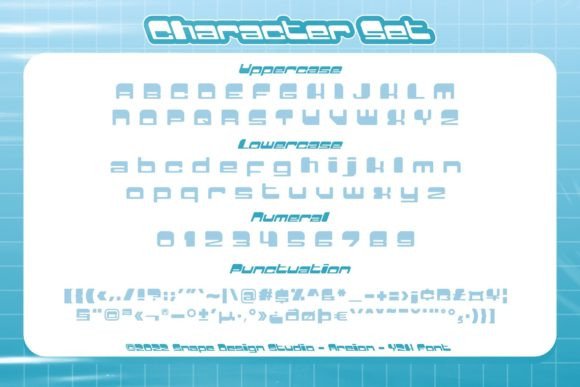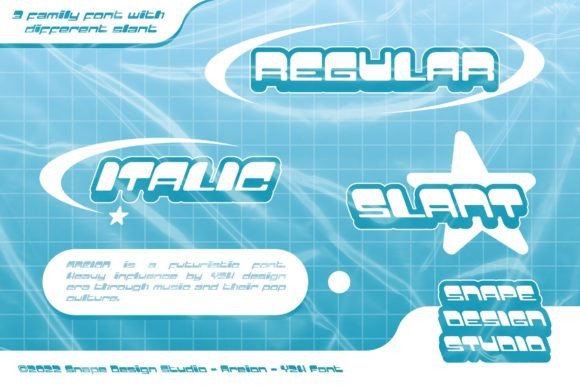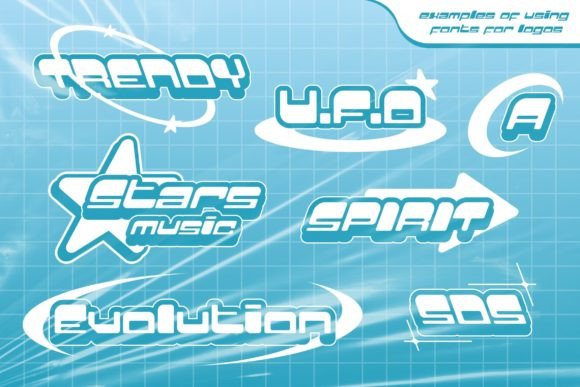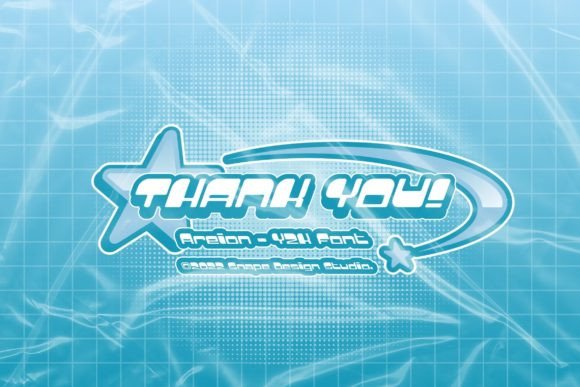
Introducing Areion Font: The Futuristic Display Font Inspired by Y2K Design
In the world of typography, fonts play a crucial role in conveying the tone and aesthetic of a design project. For designers and crafters looking to add a touch of innovation and futurism to their work, Areion Font is an exciting new discovery. This unique and futuristic display font is heavily influenced by the Y2K design era, making it perfect for technology, digital, space/galaxy-themed projects, or anything that needs a bold and forward-thinking approach.
The Y2K Design Era Influence
The Y2K design era, which emerged in the late 1990s and early 2000s, was characterized by a distinctive aesthetic that blended technology, futurism, and a dash of playfulness. This era saw the rise of digital music, video games, and the internet, which significantly influenced the visual landscape of the time. Areion Font taps into this nostalgia, incorporating elements of Y2K design to create a font that is both retro-futuristic and cutting-edge.
Key Features of Areion Font
Areion Font boasts several key features that make it an attractive choice for designers and crafters:
- Unique and Futuristic Design: Areion’s design is unlike any other font out there. Its futuristic look is perfect for projects that require a bold and innovative approach.
- Y2K Influence: The font’s Y2K influence gives it a distinctive edge, making it ideal for projects that want to evoke a sense of nostalgia for the early days of digital culture.
- High Versatility: Areion Font can be used in a wide range of projects, from technology and digital media to space/galaxy-themed designs and more.
- Excellent Legibility: Despite its futuristic design, Areion Font remains highly legible, making it suitable for use in various contexts, from headlines to body text.
Use Cases for Areion Font
Areion Font’s versatility and unique design make it suitable for a variety of projects, including:
- Technology and Digital Media: Use Areion Font to add a futuristic touch to your tech-related projects, such as app designs, website headers, or digital marketing materials.
- Space/Galaxy-Themed Designs: The font’s space-age aesthetic makes it a perfect fit for projects related to astronomy, space exploration, or science fiction.
- Music and Entertainment: Areion Font’s Y2K influence makes it a great choice for music-related projects, such as album covers, music videos, or concert posters.
- Branding and Advertising: Add a bold and innovative touch to your brand’s identity or advertising campaigns with Areion Font.
Tips for Using Areion Font
To get the most out of Areion Font, consider the following tips:
- Use it as a Display Font: Areion Font is designed to make a statement, so use it as a display font to grab attention and add emphasis.
- Experiment with Colors and Effects: The font’s futuristic design lends itself well to bold colors and effects, such as gradients, shadows, or neon effects.
- Pair it with Neutral Fonts: Balance out Areion Font’s boldness by pairing it with neutral fonts for body text or other design elements.
Areion Font is a game-changer for designers and crafters looking to add a touch of futurism and innovation to their projects. Its unique design, influenced by the Y2K era, makes it perfect for a wide range of applications, from technology and digital media to space/galaxy-themed designs and more. With its high versatility, excellent legibility, and bold aesthetic, Areion Font is sure to become a go-to choice for anyone looking to make a statement with their typography.